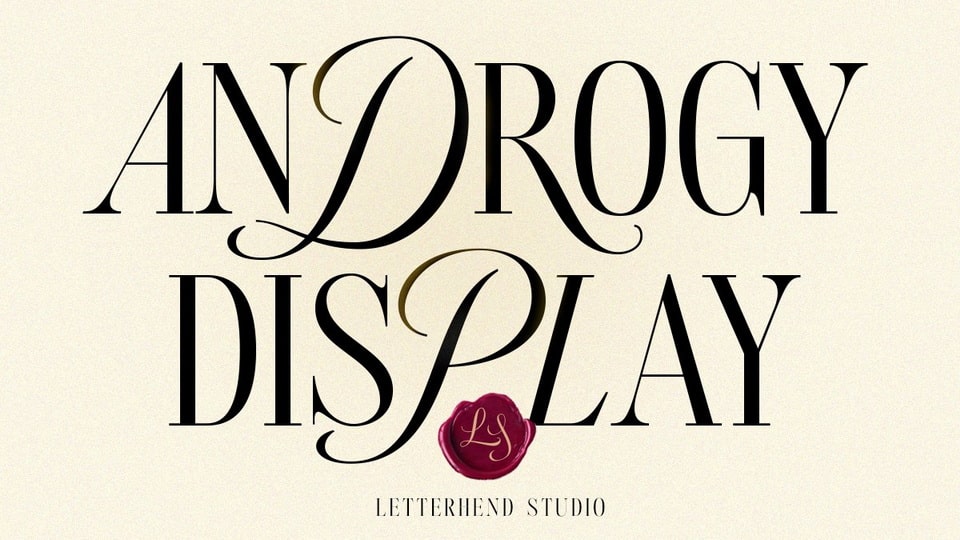
Download Androgy Display font, a sophisticated serif with two styles in one typeface. Androgy Display has unique combination with script uppercase and serif as the lowercase.